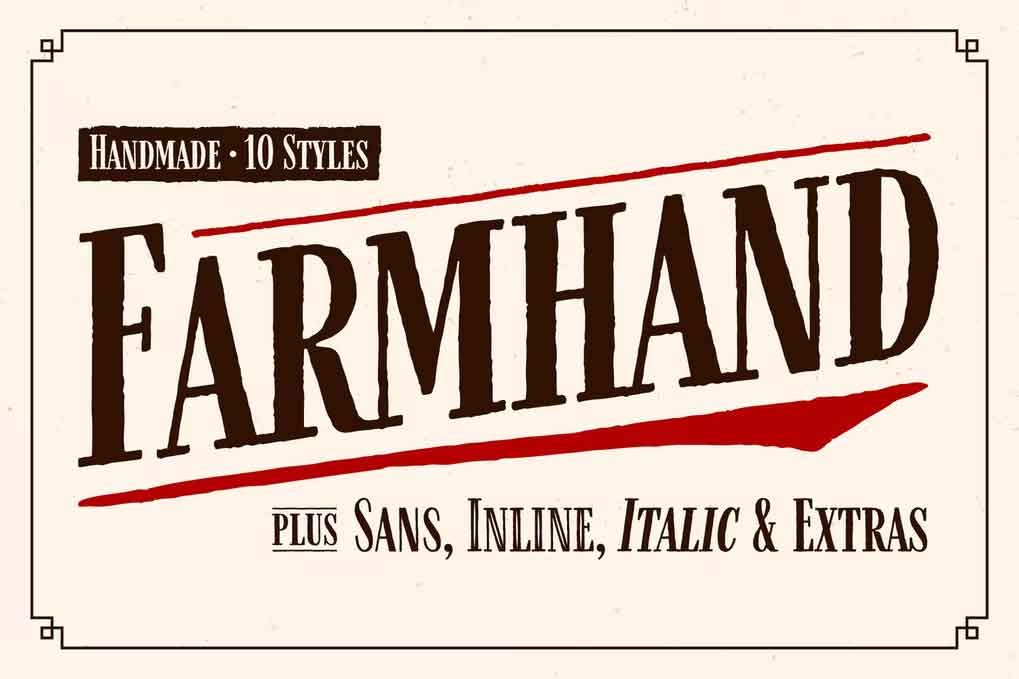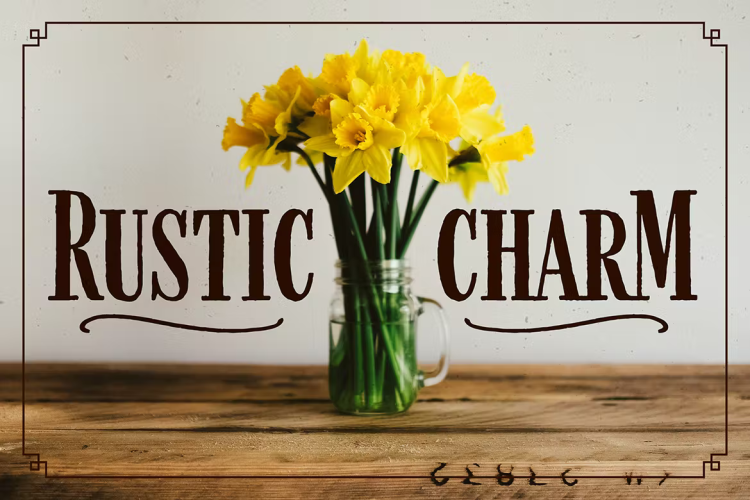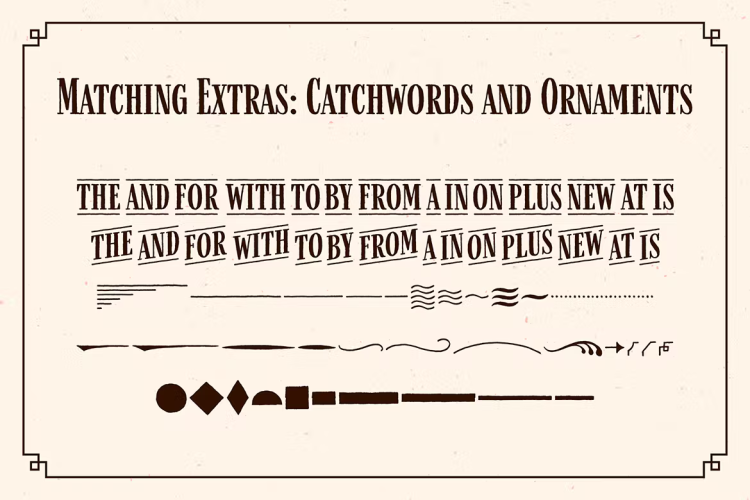
Farmhand Font Family
Farmhand is a textured, hand drawn, condensed font family featuring serif, sans, inline, italic, and extras styles suited for display titling. An all-caps typeface with individually drawn small caps for lowercase (they are not just scaled down copies of the uppercase characters). Experiment by mixing and matching the casing for a variety of titling effects. Great for packaging, branding, headlines, etc.
The sans style gives a little different look and still has the vintage appeal. Switch to the inline styles to add a little more distinction to your type. Or introduce the matching catchwords and ornaments in the extras style to increase the typographic interest. Also included are stylistic alternates (PUA-encoded) for the uppercase vowels for a little more flair.
This font has extensive Latin language support for Western, Central, and Eastern European.
Farmhand Font Family gives long-form text a classic, trustworthy rhythm — ideal for magazine spreads, annual reports and book interiors.
Pair Farmhand Font Family with generous letter-spacing for wordmarks in fashion, hospitality, wine and jewellery branding.
Use Farmhand Font Family for slide titles in Keynote, PowerPoint or Google Slides to add authority without looking dated.